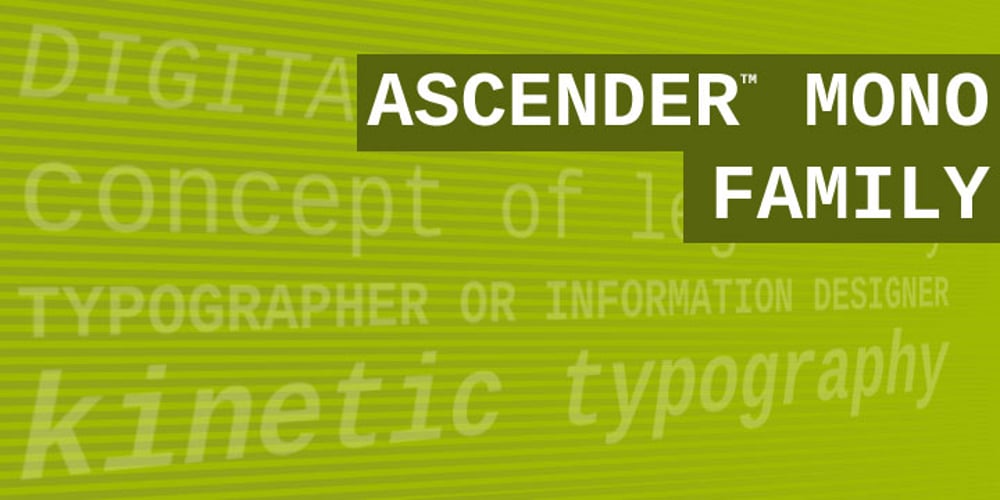
Ascender Sans Mono
Ascender Sans Mono Font Family was designed by Steve Matteson and published by Ascender. Ascender Sans Mono contains 4 styles and family package options. The Ascender Sans Mono font family was designed by Steve Matteson as an innovative, refreshing sans serif design that is metrically compatible with Courier New. Ascender Sans Mono offers improved on-screen readability characteristics and the pan-European WGL character set. The Ascender Sans Mono Family (4 fonts) solves the needs of developers looking for width-compatible fonts to address document portability across platforms. Character Set: Latin-1, WGL Pan-European (Eastern Europe, Cyrillic, Greek and Turkish).